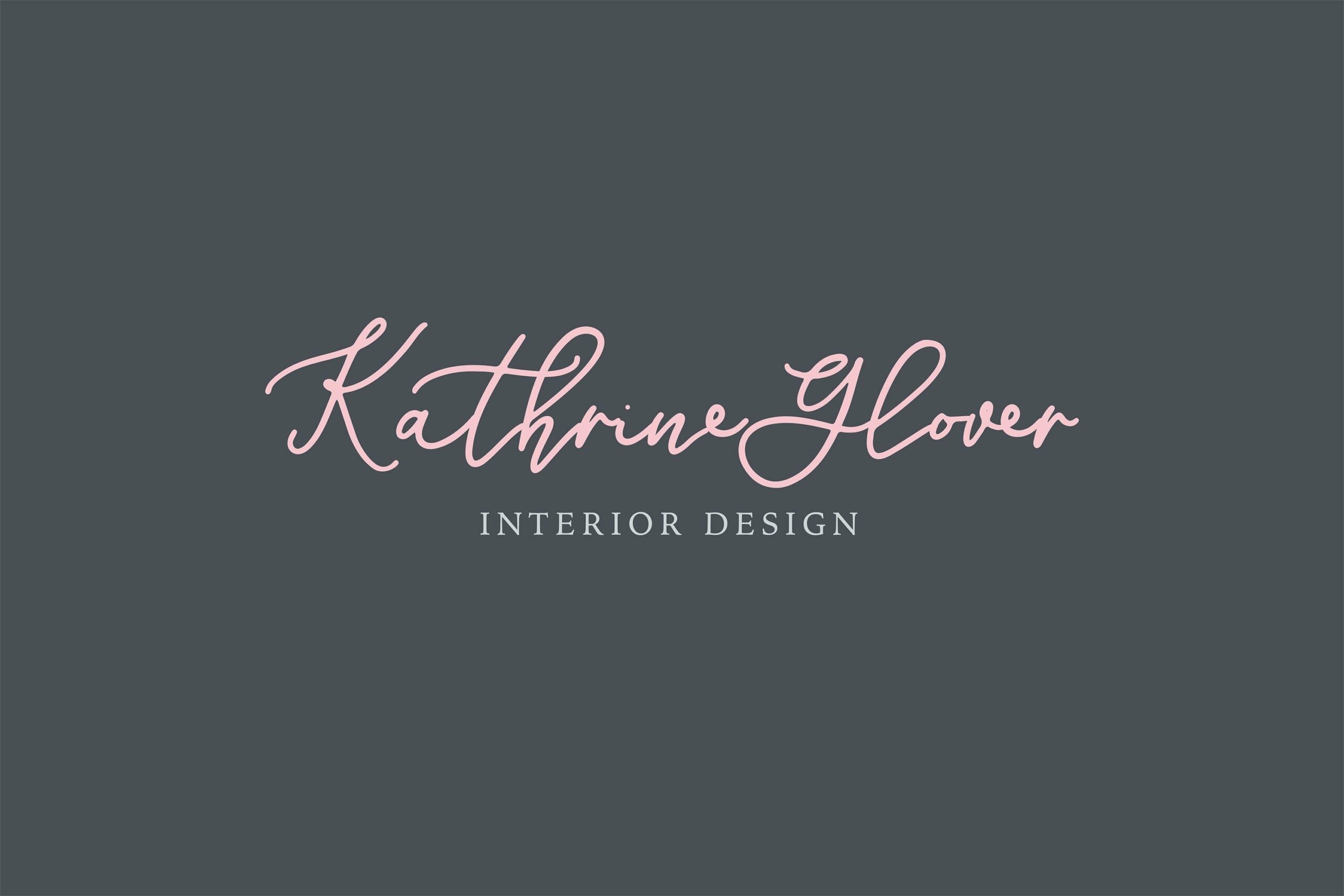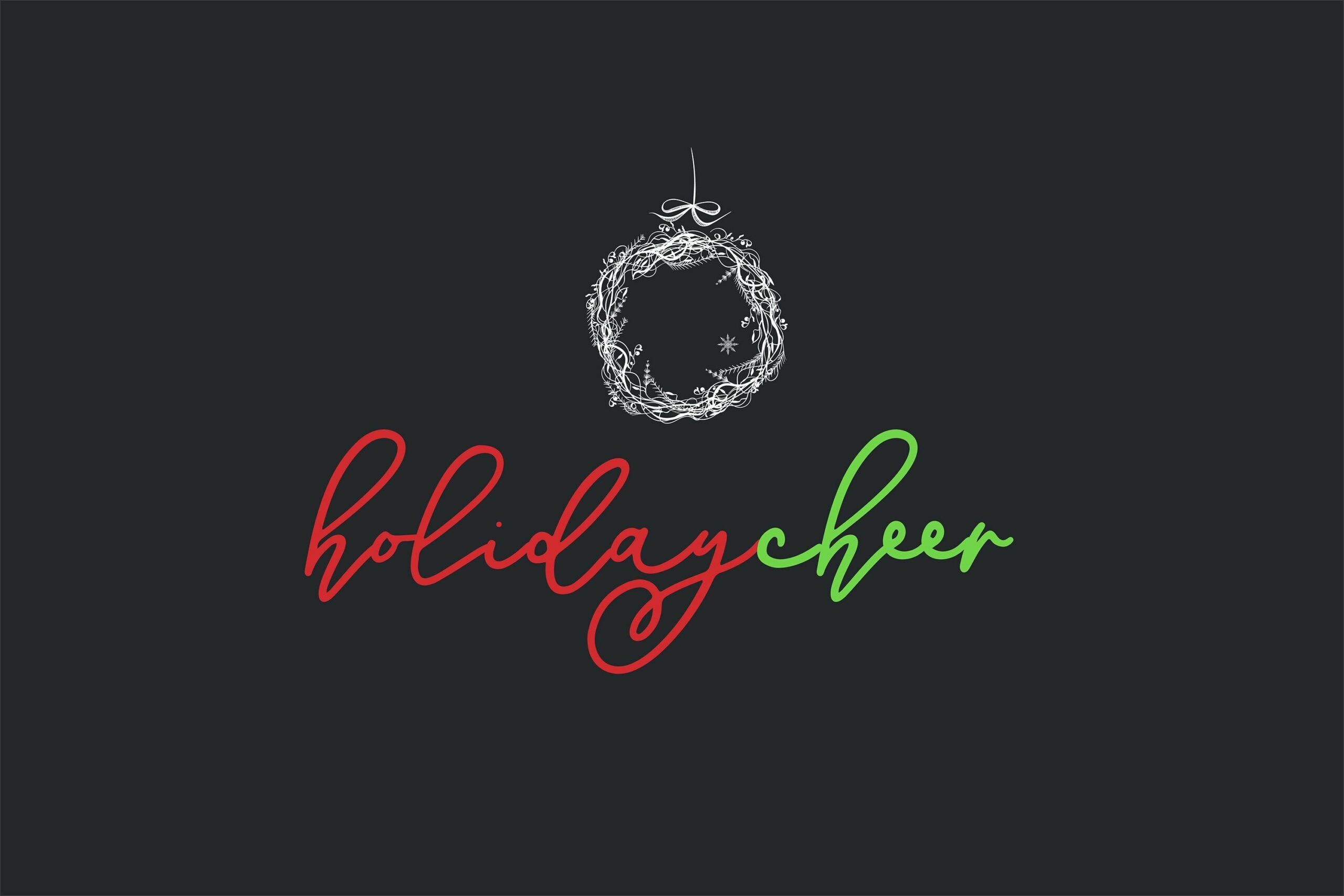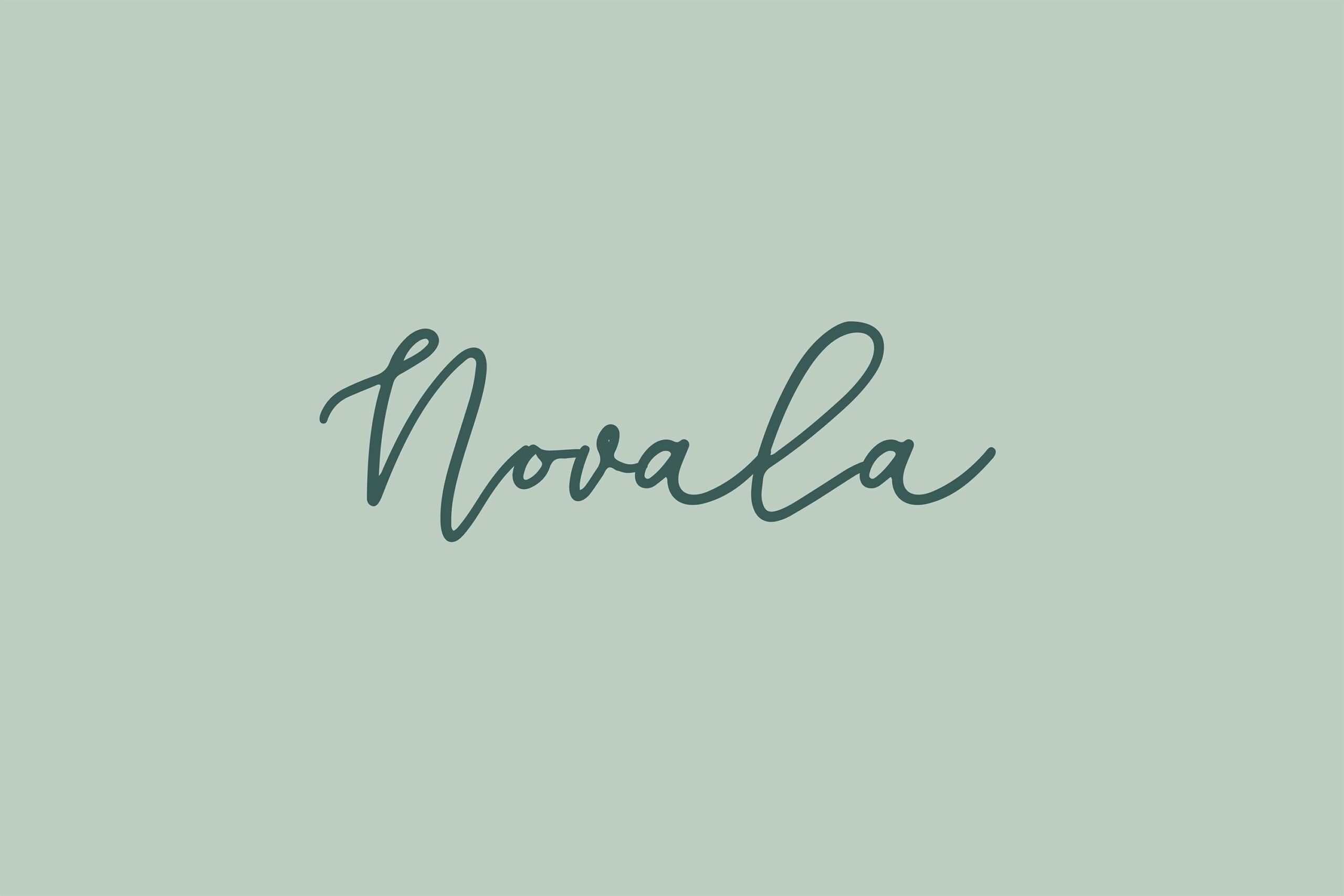
HomeScript FontsNovala Script Fonts Novala FacebookXPinterestWhatsApp 1 of 4 ... ... ... ... About Novala Novala is a monoline script font by OTSS Casual yet whimsical OTF file included DOWNLOAD NOW People also explored Gobble Gobble Font Autumn Font Multipie Font Quanta Font Tupelo Honey Font Rutherford Font Black Beard Font City Shine Font Mariabella 202 0 TagsNovala Previous articleCalliahNext articleSilver Fox Font Trio LEAVE A REPLY Cancel reply Comment: Please enter your comment! Name:* Please enter your name here Email:* You have entered an incorrect email address! Please enter your email address here Website: Save my name, email, and website in this browser for the next time I comment. Personal Use Free Cataleya Personal Use Free Read more about this font Hubbies Personal Use Free Read more about this font Clarisa Script Personal Use Free Read more about this font Mowgli Personal Use Free Read more about this font BLOG Elegant Wedding Invitation Fonts – Handwritten & Script Fonts Elegant Wedding Invitation Fonts Your wedding day is one of the most important moments of your life, and every detail matters—including your invitation design. Our... Top 7 Google Fonts Alternatives for Faster and Privacy-Friendly Web Design (2025) The 10 Best Handwriting Fonts to Add Personality to Your Designs Best Fonts for YouTube Videos: Make Your Thumbnails Stand Out